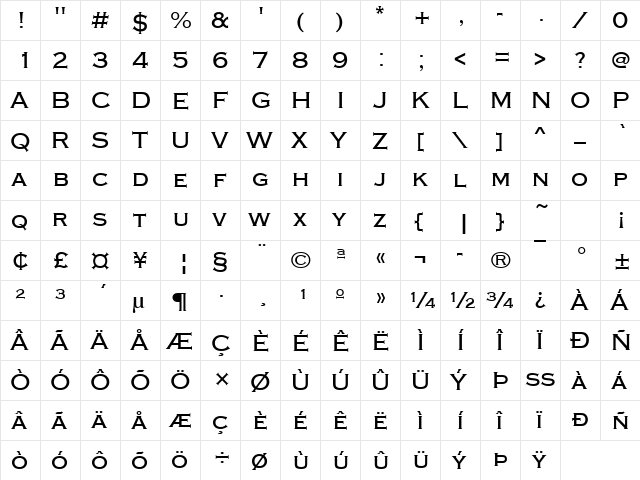
Copperplate Becker Med Regular
Design Context for Copperplate Becker Med Typeface
Copperplate Becker Med takes a measured approach to typography — its balanced proportions and neutral character make it a reliable workhorse for both digital and print work.